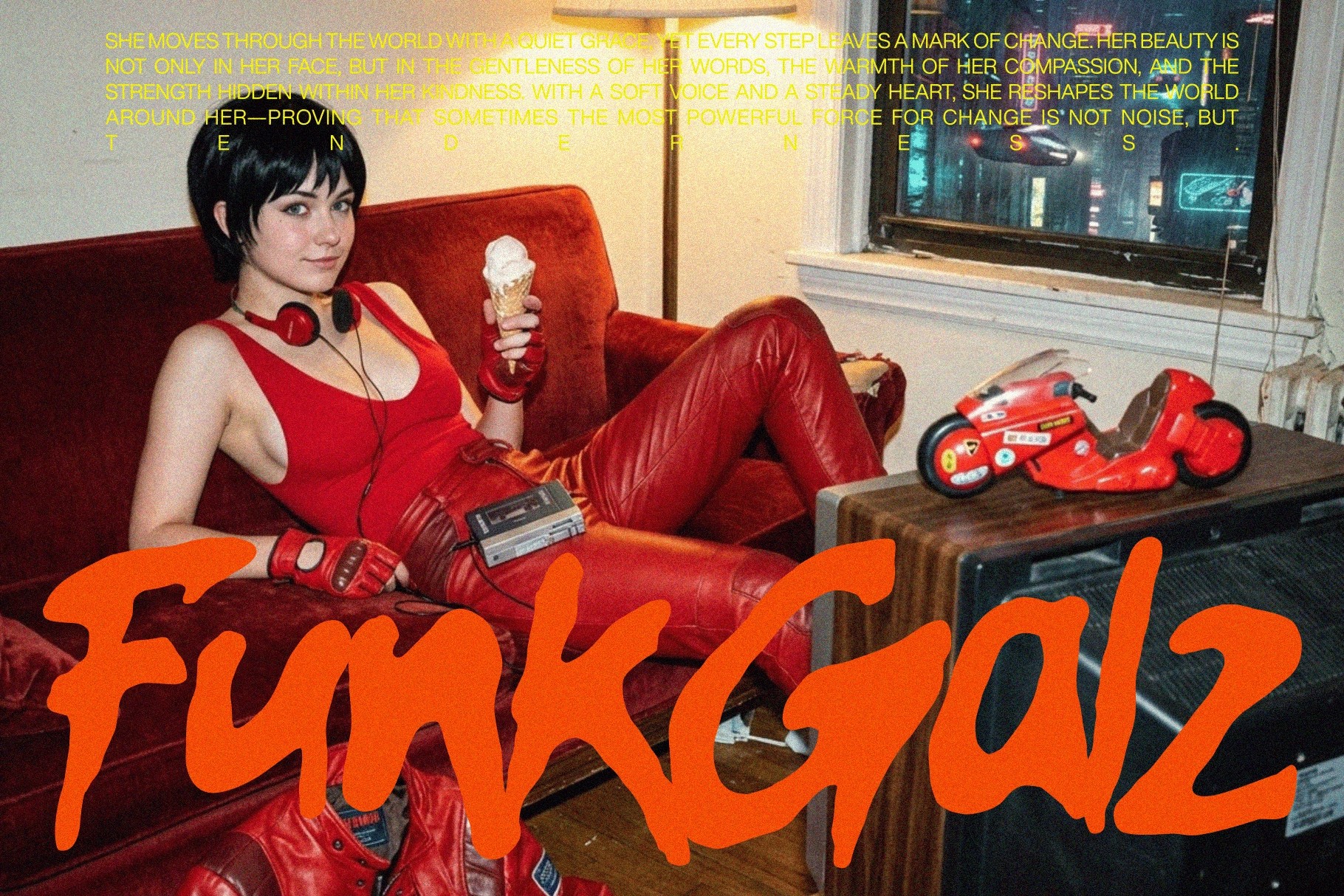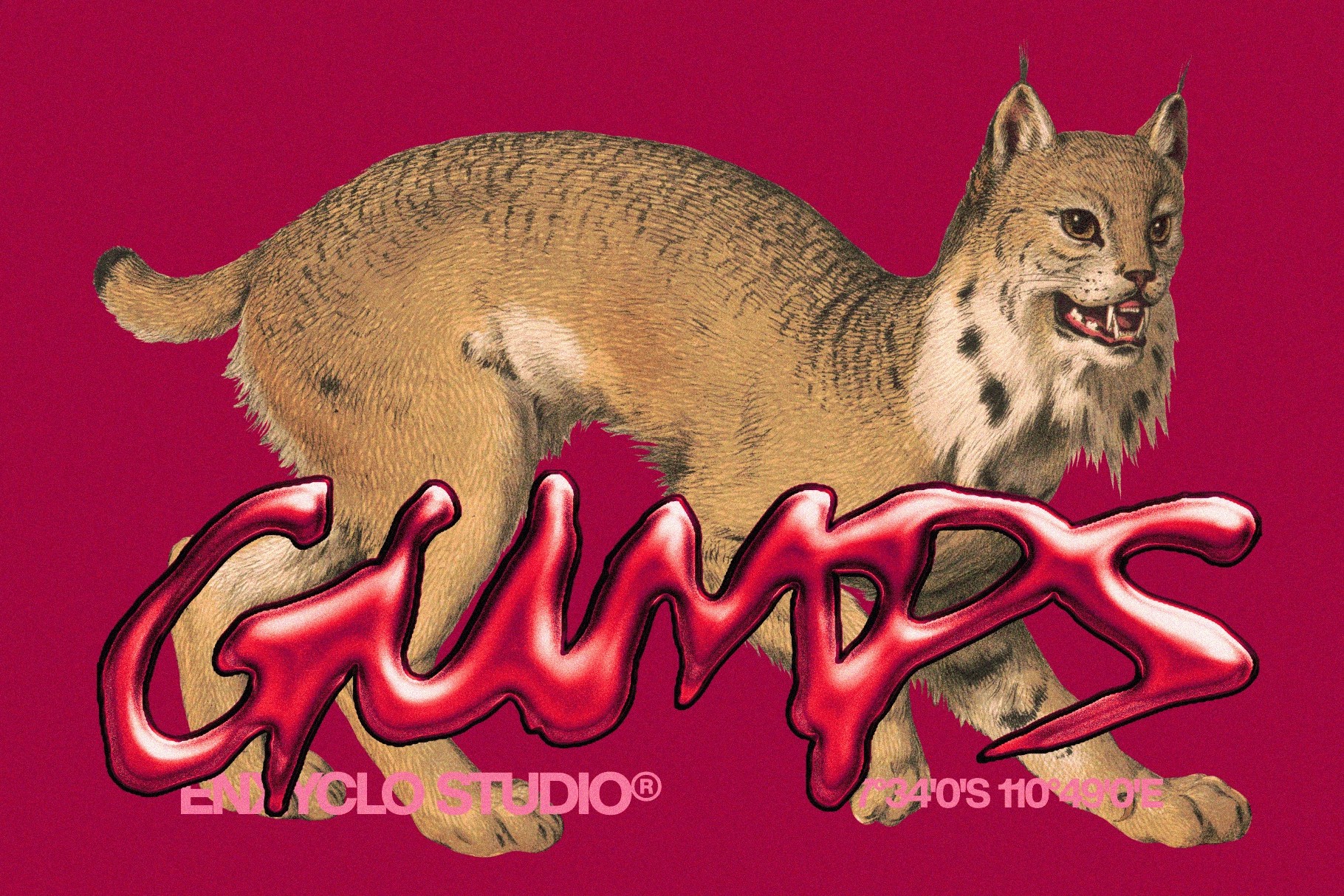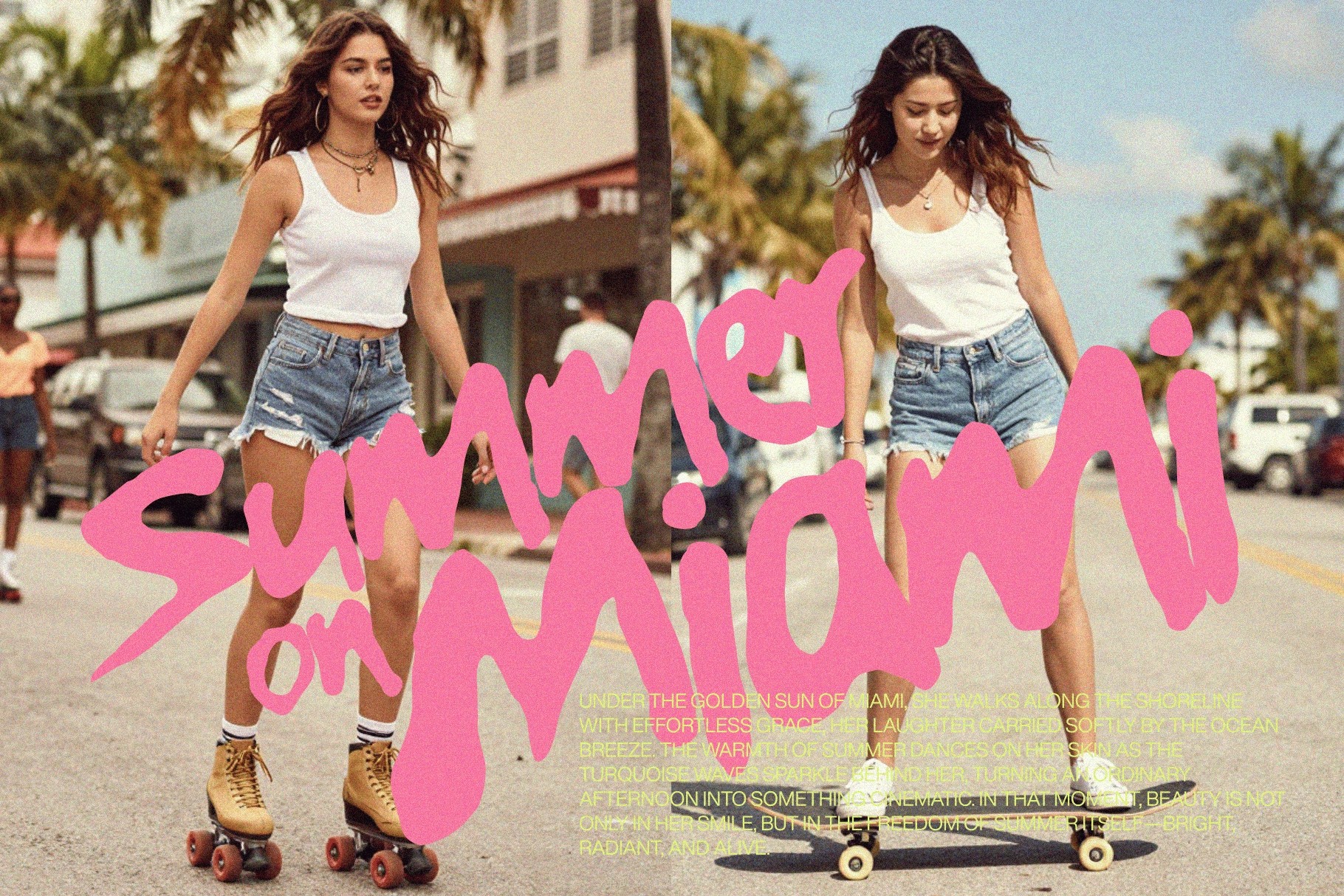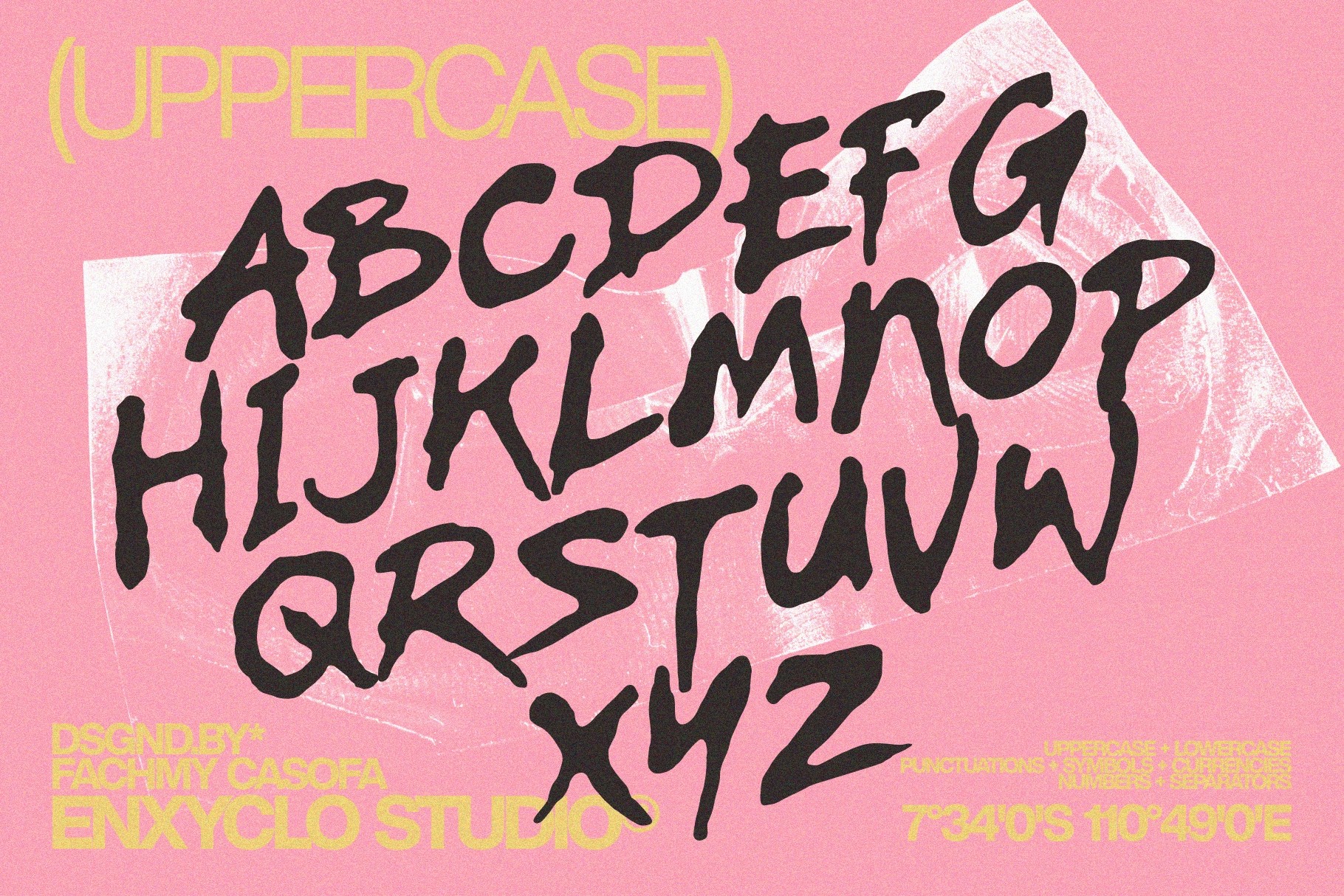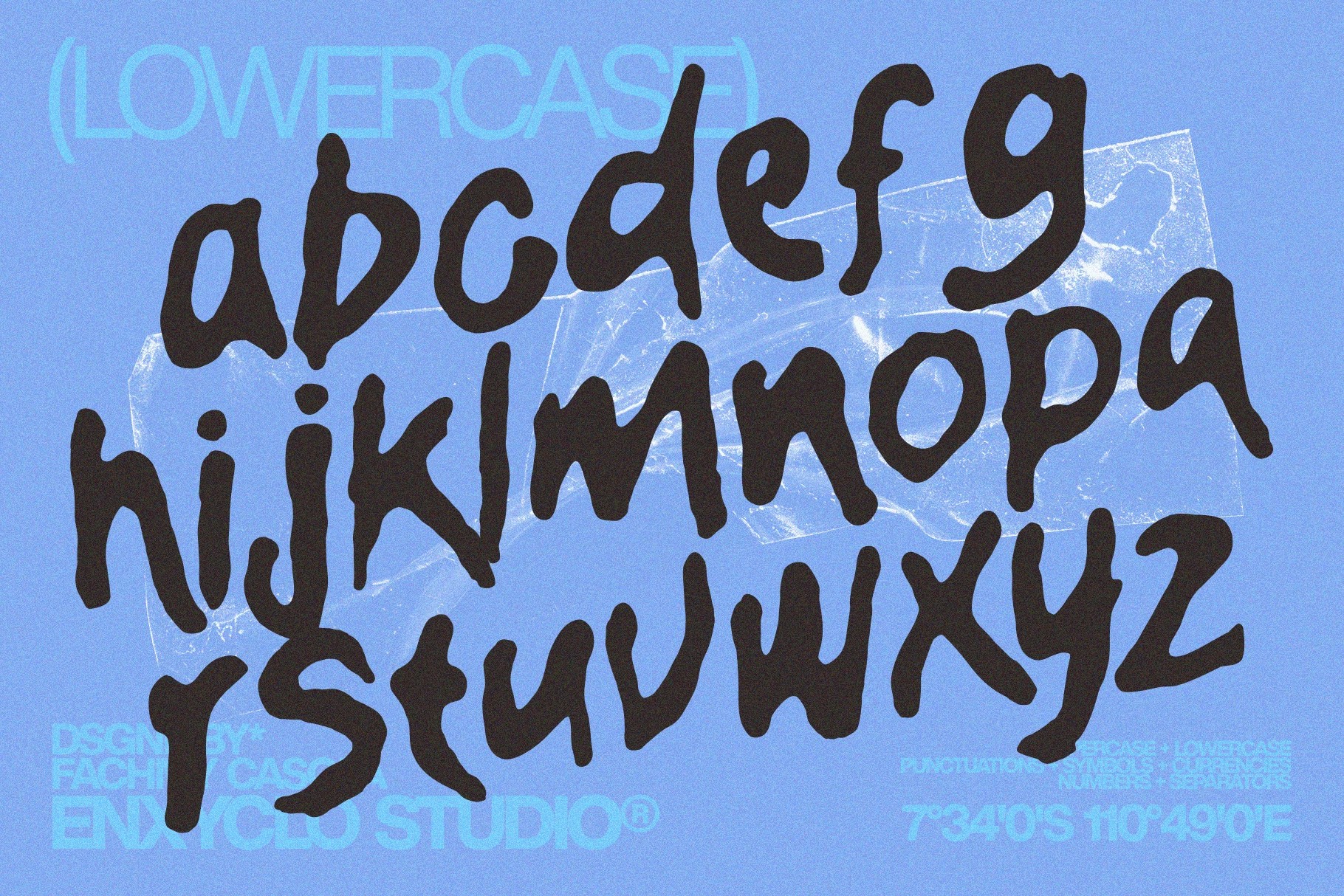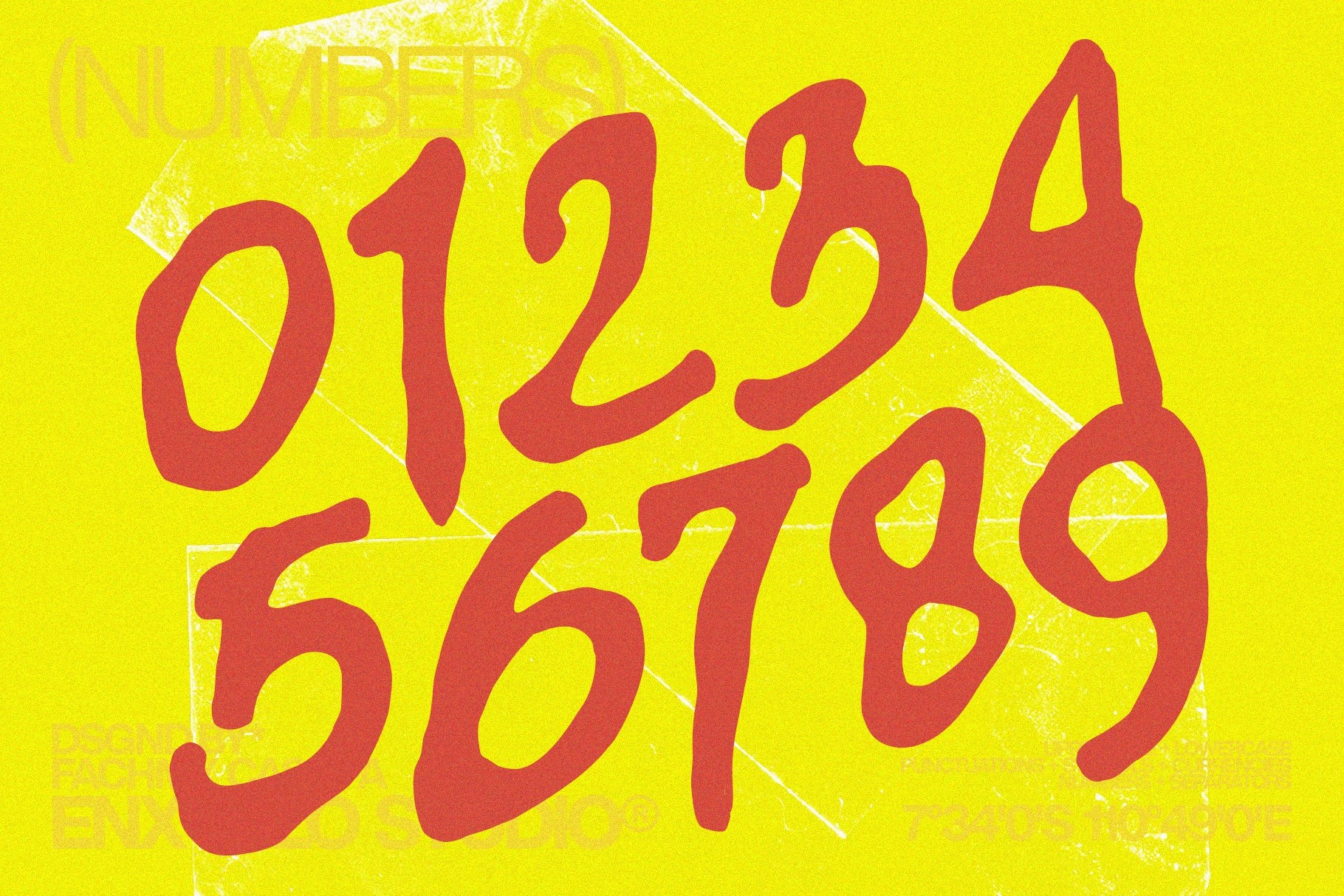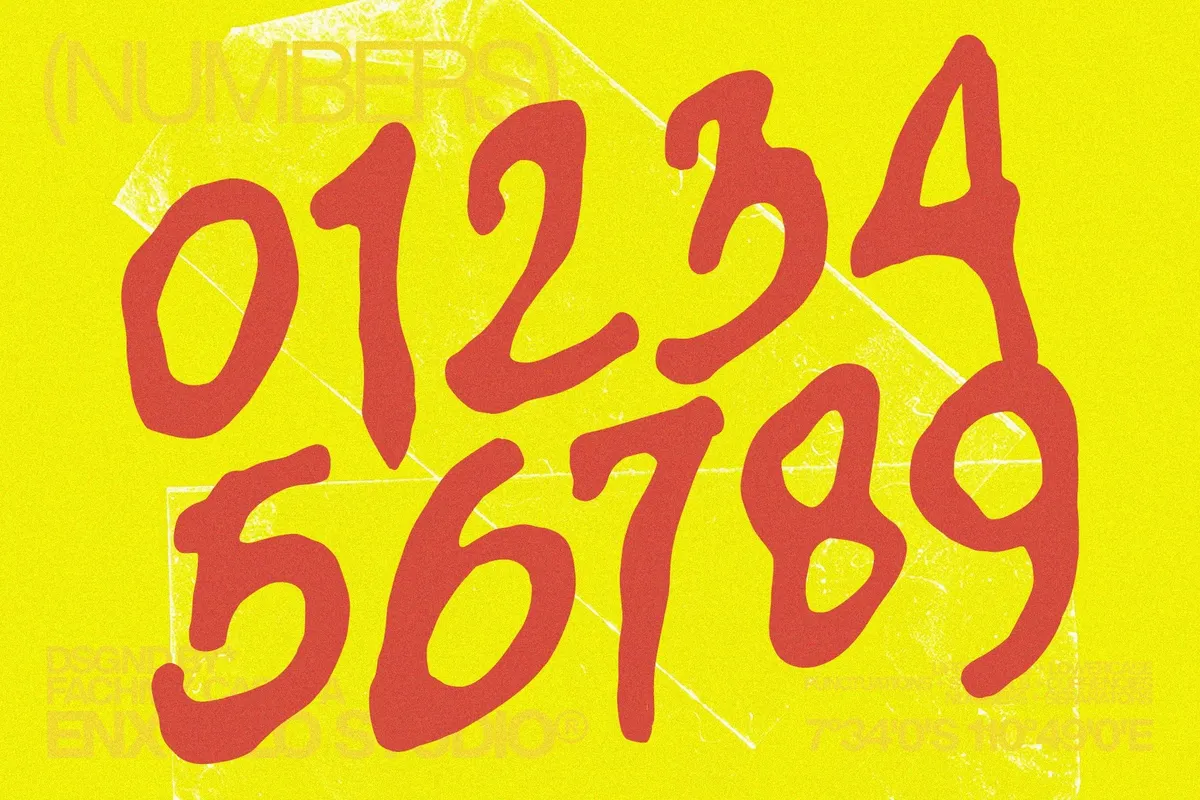
Gumps Over - Messy Brush Font
GUMPS OVER
Gumps Over - Messy Brush Font is a gritty handdrawn typeface inspired by urban culture, industrial textures, and raw brush strokes. Built with attitude and expressive energy, it embraces imperfection to create a bold, authentic visual style that feels modern and unapologetically strong.
Each letter captures natural movement and rough texture, delivering a powerful presence while maintaining solid readability. Perfect for logos, branding, posters, and creative projects, Gumps Over blends raw artistic expression with functional design—making it ideal for visuals that demand attention.
- Punctuation marks
- Symbol set
- Currency symbols